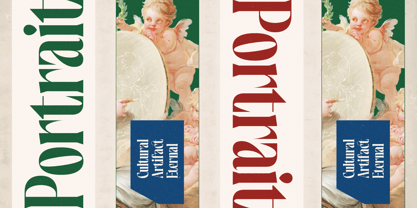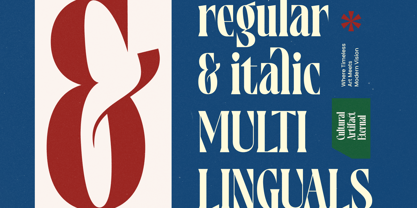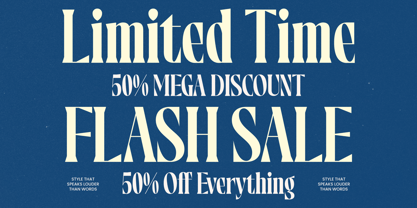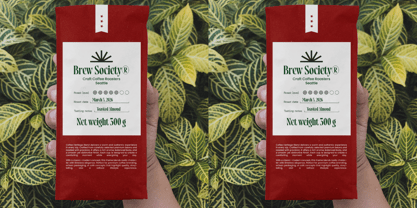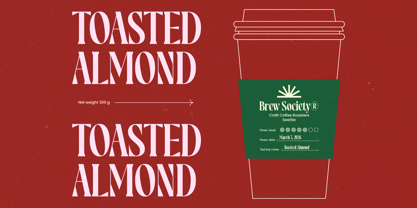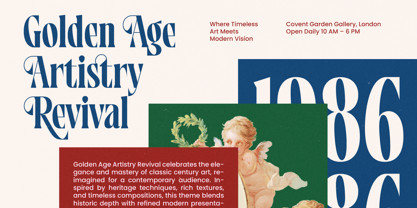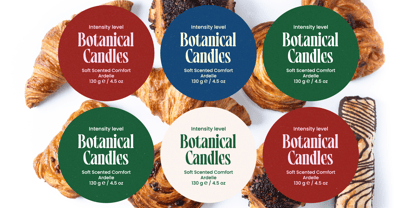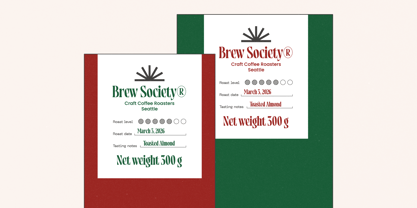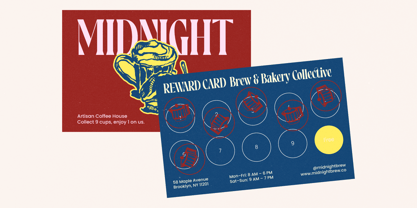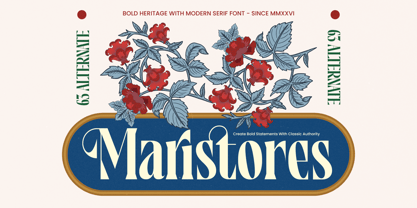
Maristores
The Maristores Font Family was designed by Heru Utama Putra and published by Timelesstype Studio. Maristores contains 2 styles and family package options. More about this family
Maristores is a bold heritage-inspired modern serif font crafted to combine classic authority with contemporary refinement. Designed with strong vertical strokes, elegant contrast, and timeless proportions, this typeface delivers a commanding presence while maintaining graceful sophistication. Perfect for luxury branding, editorial layouts, packaging, wine labels, fashion campaigns, logos, and high-end marketing materials, Maristores brings a sense of tradition redefined for modern design. Featuring 65 alternates and refined stylistic details, it offers creative flexibility while preserving its distinguished character. Whether used for bold headlines or refined brand identities, Maristores creates powerful visual statements with lasting elegance in both print and digital formats.